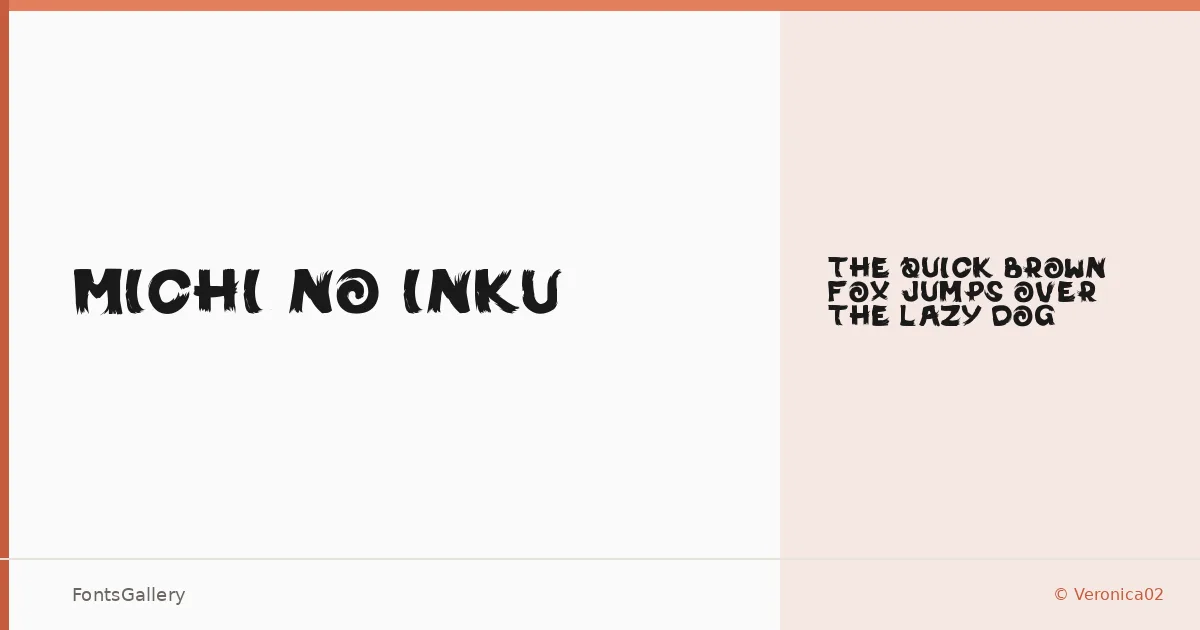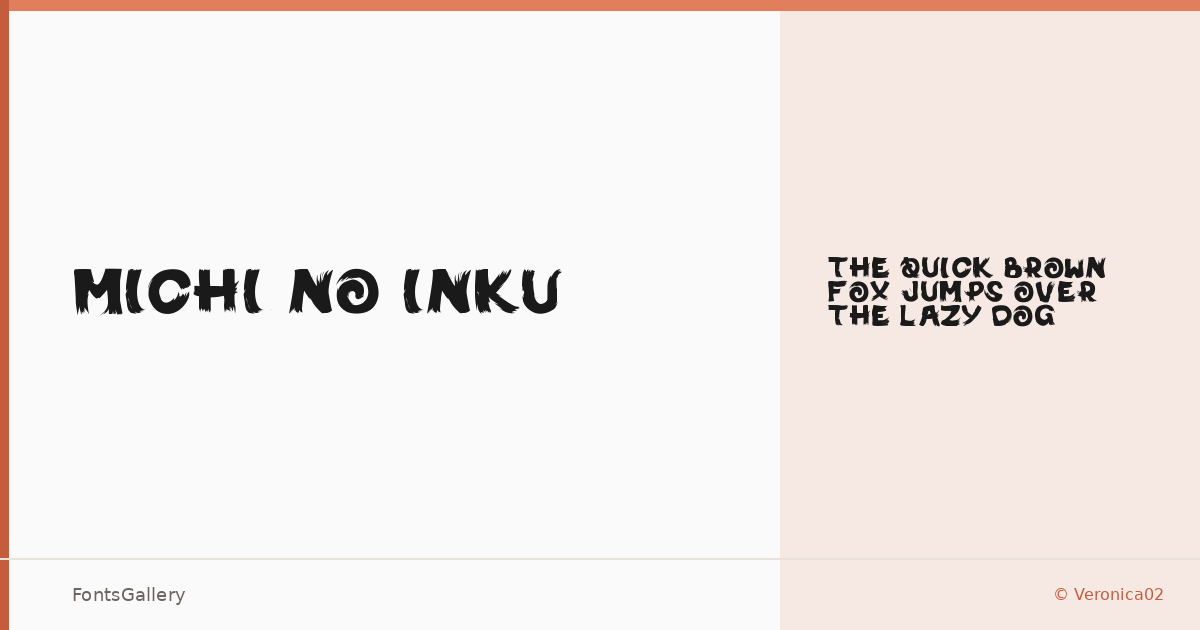
About Michi No Inku Font
There is a loose, brush-like energy to this display face — the kind of letterform that looks like it was drawn quickly and with intention. Created by Veronica02, it arrives as a single Regular Normal cut in TTF format, built with a handcrafted sensibility that leans into its own imperfections rather than away from them. The Latin character set is tight but sufficient for the work this face is meant to do.
Bold and playful in equal measure, this is a display typeface that carries a modern, whimsical weight — the sort of lettering you notice before you read it. The single Regular Normal style means there is no weight range to navigate; everything depends on how you set it and what you set it against. Its forms have an expressive, almost hand-inked quality that keeps it from feeling mechanical, even at large sizes.
It earns its keep in branding, logo work, posters, social media graphics, and t-shirt design — anywhere a headline needs personality rather than neutrality. For text underneath or alongside it, the clean geometry of Helvetica or Aileron provides useful contrast, while AQUA, Abrade, and Aranea offer more characterful pairings if the project calls for two expressive voices rather than one.